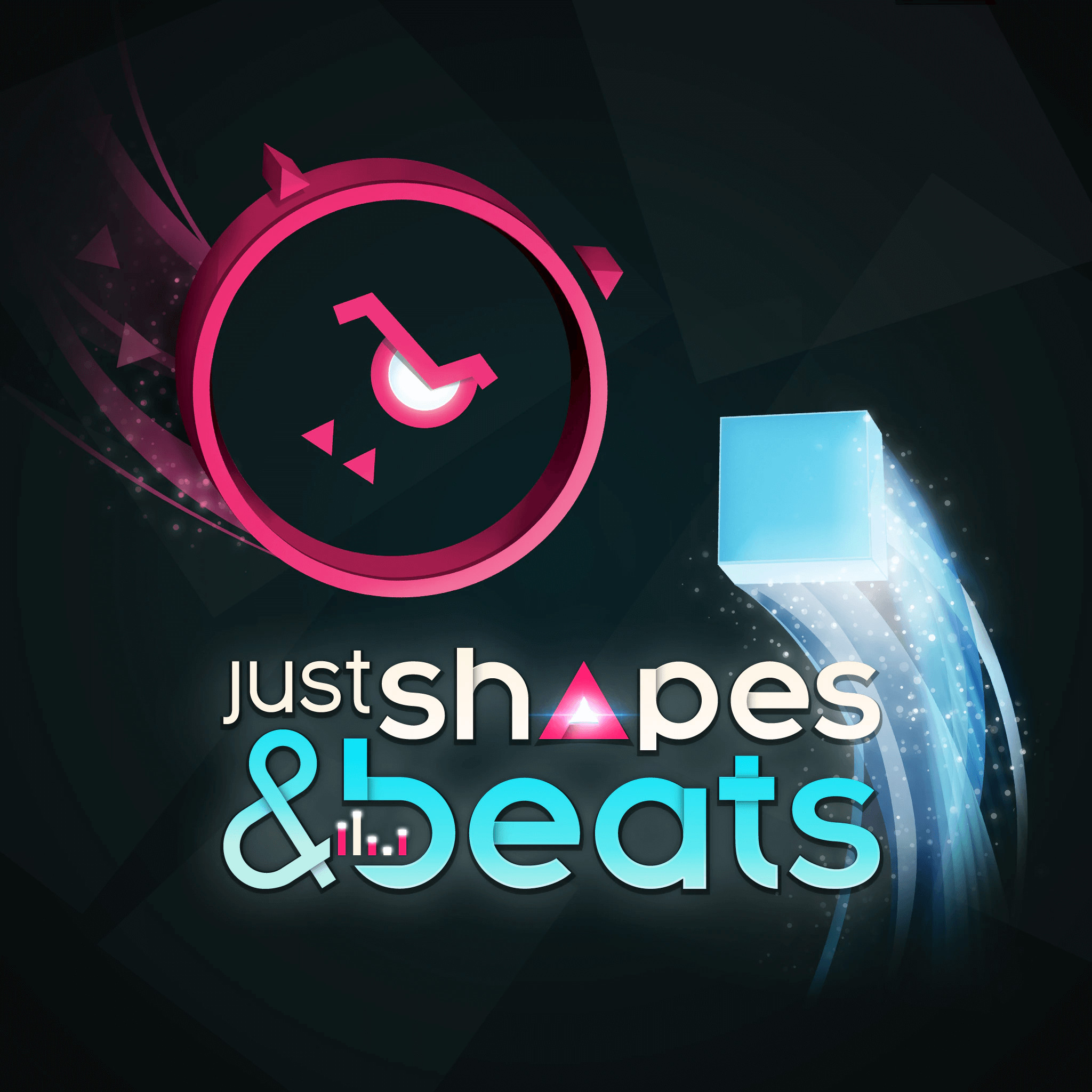
Just Shapes & beats Font
Fonts in UseJust Shapes & Beats is a fast-paced rhythm game developed by Berzerk Studio, where players must dodge obstacles to the beat of the music. The game features a colorful, abstract art style and a wide variety of music from different genres.
The custom-designed logo of the video game took inspiration from Nexa Bold and Nexa Book, which are part of the geometric sans-serif font family designed by Svetoslav Simov and published via Fontfabric. You can learn more about the Font Family here.